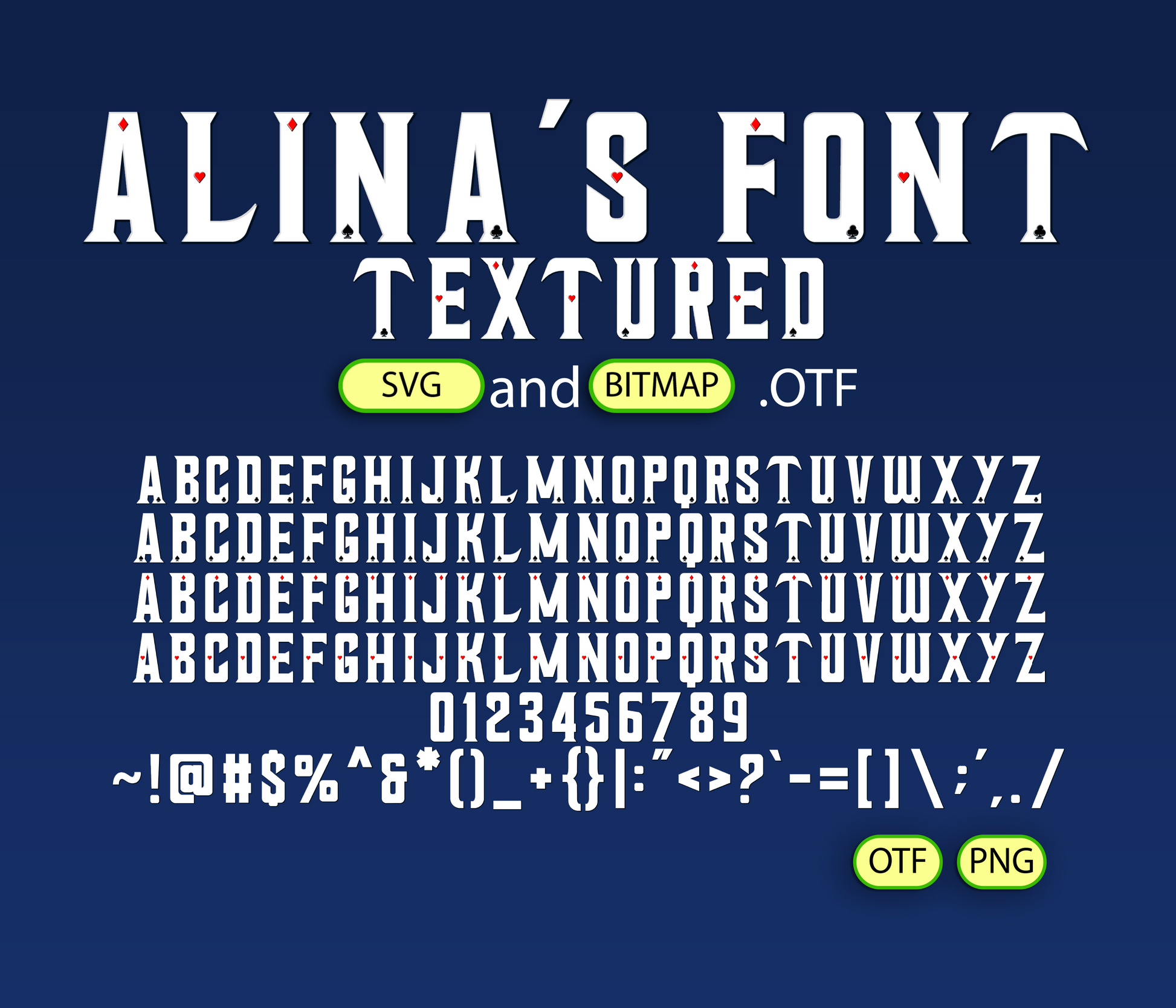
Dystopian Playing Cards Font Textured
Step into the thrilling world of deadly card games with our Dystopian Playing Cards font, capturing the essence of survival matches and high-stakes tournaments. Perfect for game enthusiasts, mystery creators, event organizers, and designers, this font brings the intense, suspenseful spirit of card-based challenges to your projects. Create immersive materials, merchandise, or digital content with the heart-pounding excitement of life-or-death card games.
Our Dystopian Playing Cards font features sharp, card-inspired lines and mysterious characters reflecting the intense world of survival games. Ideal for:
- Event Promotions: Create suspenseful invites, posters, and banners for card tournaments, mystery events, and themed parties that capture the spirit of high-stakes gaming
- Merchandise Design: Perfect for t-shirts, posters, and accessories that showcase the dark allure of playing card challenges
- Digital Media: Enhance websites, blogs, and social media with dynamic headers and graphics that express the tension of card-based survival
- Gaming Content: Add authentic flair to game designs, card layouts, and creative projects inspired by dystopian card challenges
- Personal Projects: Bring mysterious excitement to scrapbooking, DIY crafts, and home decor inspired by the world of survival card games
Our font pays tribute to the intense world of survival card games, empowering your designs with its mysterious and suspenseful spirit. Whether crafting promotional materials, designing merchandise, or adding a dramatic touch to personal projects, this font communicates the bold essence of high-stakes card challenges. Ready to inject thrilling card game tension into your creations? This font is your key to exciting, impactful design.